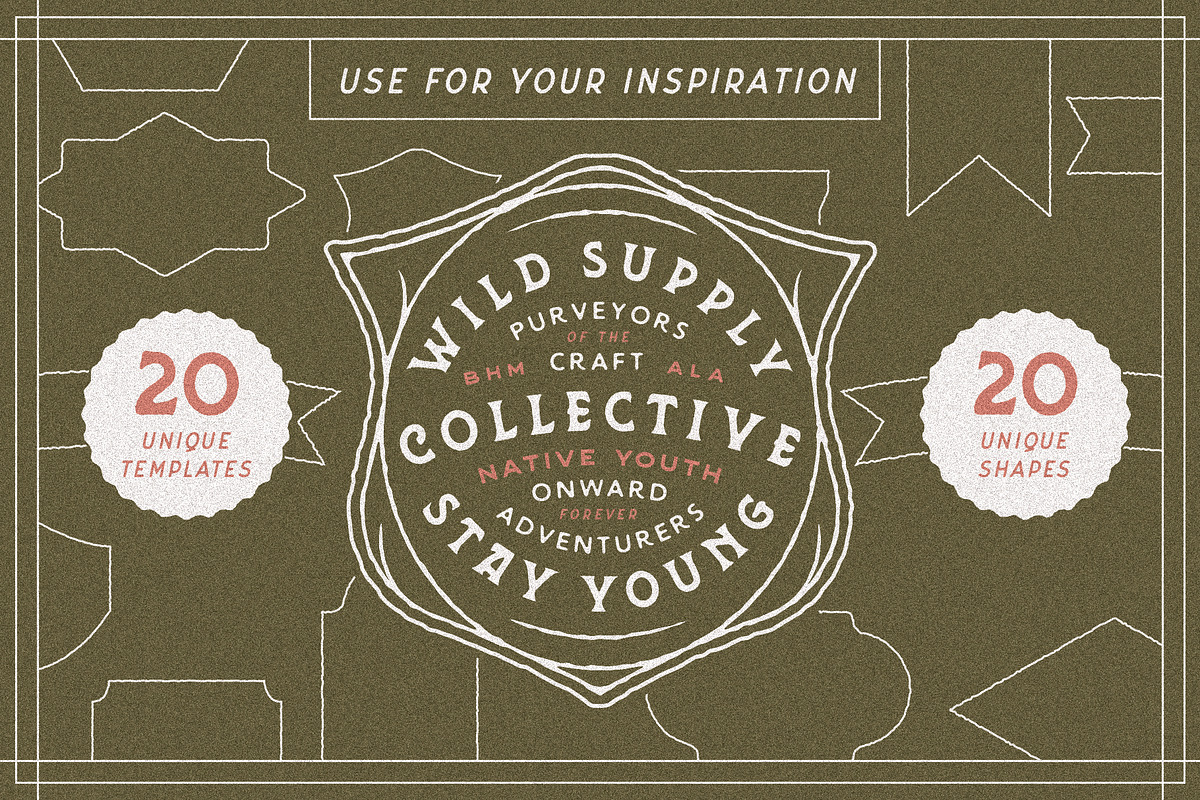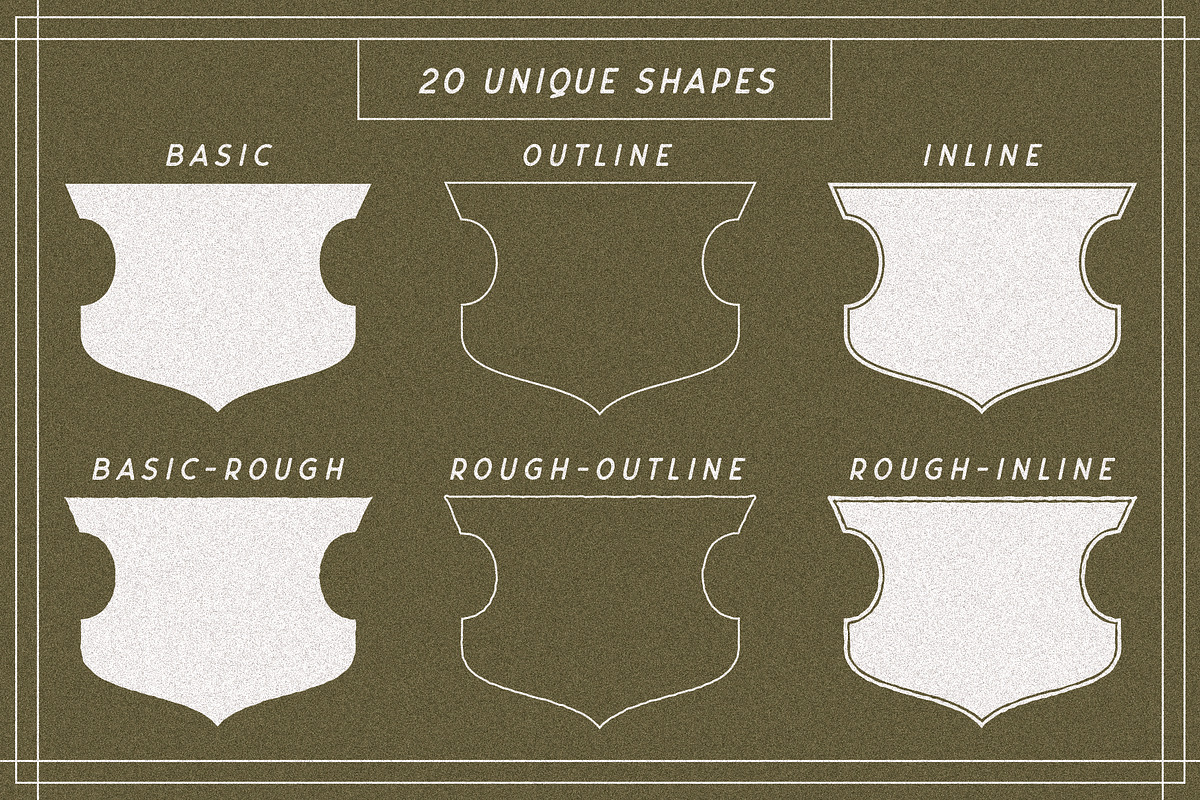
Grit & Caliber - Vintage Bundle
Introducing Grit & Caliber - Vintage Bundle!
20 Unique Templates • 20 Unique Shapes • 10 Color Options
Grit & Caliber gives you the tools you need to create vintage-inspired designs. The main font is crafted from vintage whiskey labels and matchboxes. We meticulously created each letter to have that vintage feel you know and that your clients love! In short, this bundle was created in an attempt to make all of your vintage design dreams come true!
- Grit & Caliber in 3 styles (regular, rough, & stamp)
- 20 Unique Lockup Templates
- 20 Hand Drawn Shapes (in multiple styles)
- 10 Color Options (20 unique templates, in 10 colorways)
20 Lockup Templates
Yes seriously 20 TEMPLATES uniquely crafted by hand. Each template can be used for a number of different things ranging from branding and business cards, all the way to tee shirt designs.
20 Hand Drawn Shapes
20 vintage inspired shapes perfect for use with the lockup templates. Pair them together and make something truly unique, or just use the shapes for whatever projects you have lined up.
10 Color Options
Most designers struggle with colors, and now it doesn't have to be hard. Each template comes in 10 different unique colors options. Get the creative juices flowing and use great colors!
USE
This vintage bundle is perfect for almost any project you can imagine. Ranging from farmers markets all the way to magazine articles, this bundle is sure to give you all the tools you need to create unique vintage-inspired designs!